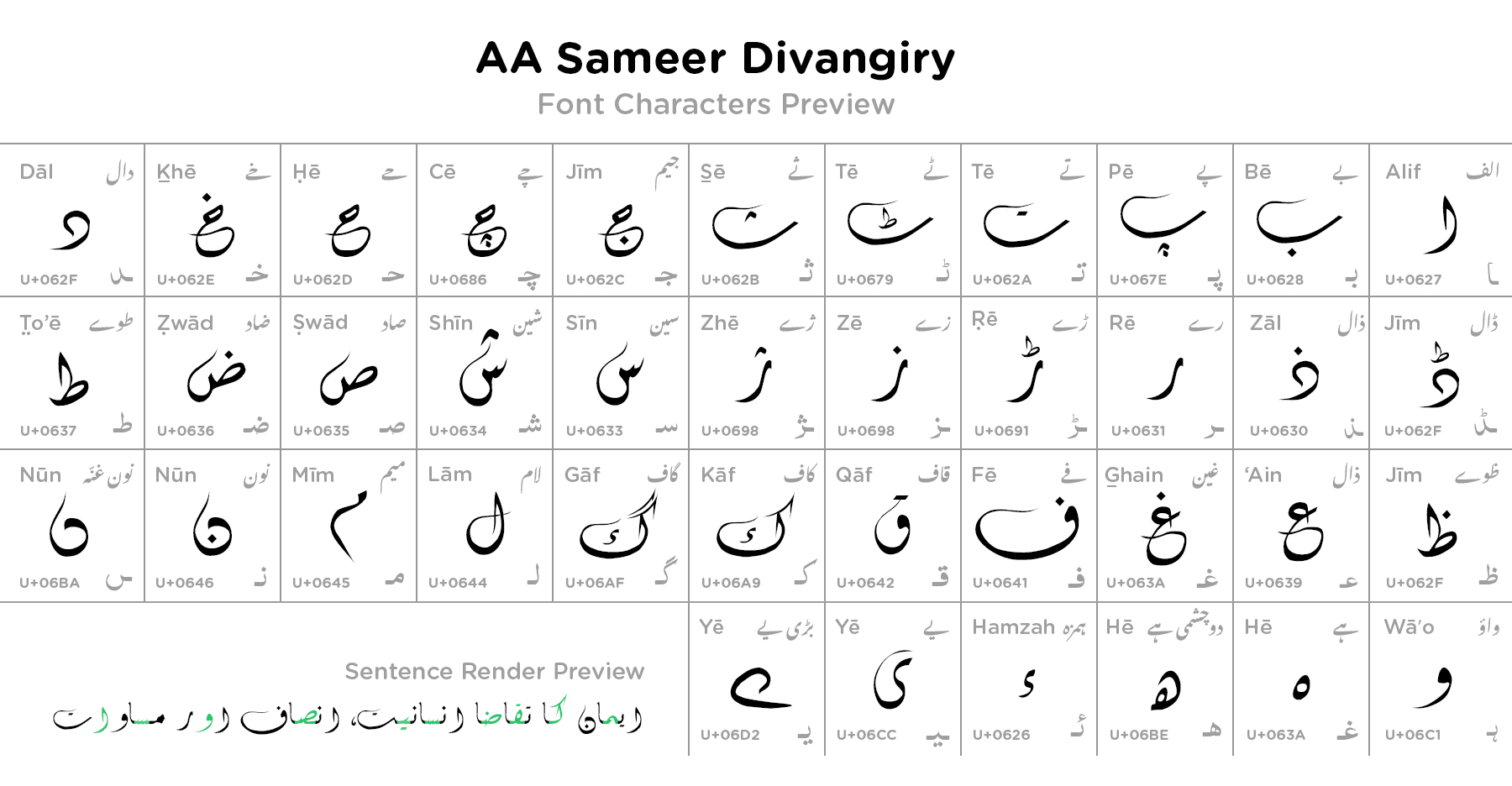
AA Sameer Divangiry is an Arabic delicate and free-style calligraphy font released on 30th January, 2016. With support for multiple languages, including Latin, Greek, and Arabic, as well as partial support for Urdu, Persian, and other languages, it offers a glyph count of 355 and a charset of 219 letters. The font follows the Nastaliq script with a contemporary twist, featuring thin and flowing strokes and minimal decorative elements for a light and airy design. The letters have light curves, mostly straight with elongated tails that are rounded in the end. Subtle variations in stroke thickness make this font visually appealing, and diacritics are seamlessly combined for enhanced readability. The font retains the elegance of traditional Nastaliq while including modern elements for a balanced and visually interesting look. AA Sameer Divangiry, just like many of its sister fonts, is a decorative font rather that a plain writing typeface. So, use it with your design project like logos, invitations, posters, etc.
AA Sameer Divangiry
Diwani -